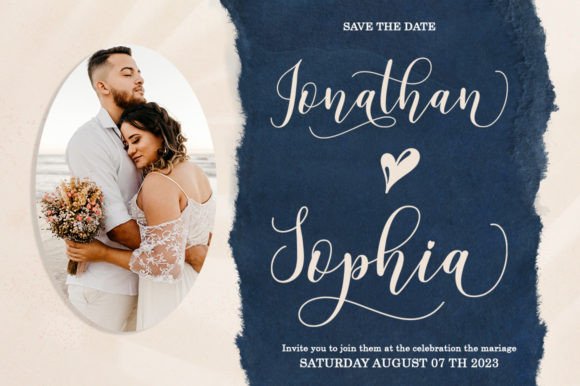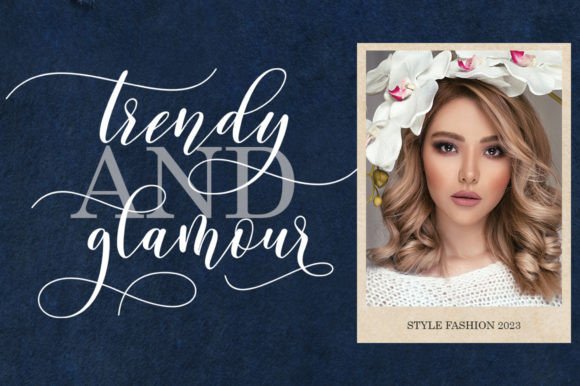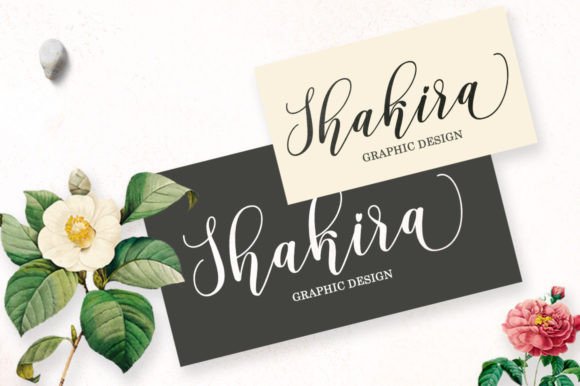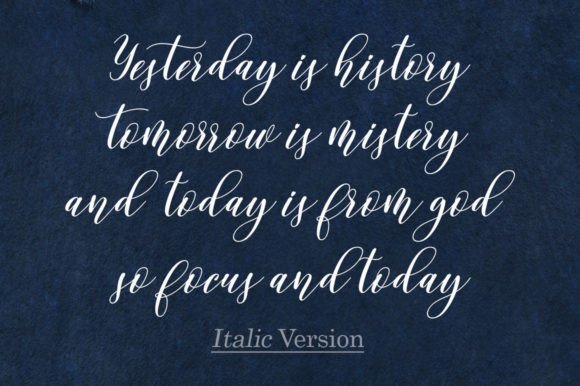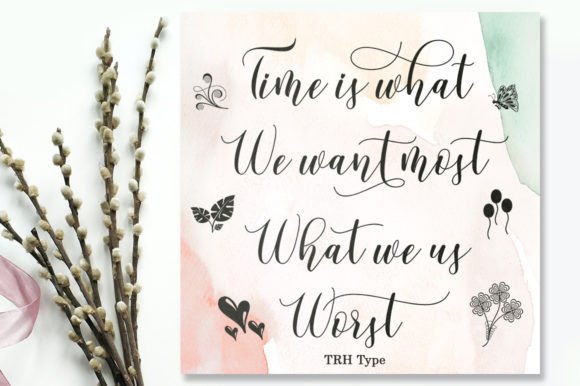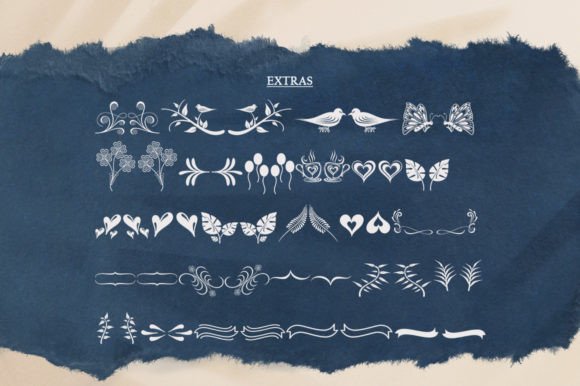
Introduction to Hello Sweetheart Font
Have you ever found yourself staring at a blank design project, desperately searching for the perfect font to give it that extra oomph? I’ve been there too, and trust me, it’s frustrating. But what if I told you there’s a font that can instantly elevate your design game? Enter the enchanting Hello Sweetheart Font, a beautifully crafted typeface that exudes elegance and sophistication.
As a designer, you know the importance of having the right design resources at your fingertips. And when it comes to creating a high-quality, professional-looking project, the right font can make all the difference. With its delicate curves and refined aesthetic, the Hello Sweetheart Font is a valuable addition to any designer’s toolkit.
Key Features of Hello Sweetheart Font
- Unique, cursive script design ideal for creative projects and romantic themes
- Includes a range of characters, including uppercase and lowercase letters, numbers, and punctuation
Honest Review: Hello Sweetheart Font
I recently stumbled upon the Hello Sweetheart Font while searching for the perfect design resource for a creative project. I was immediately drawn to its playful, handwritten style, which I knew would be perfect for a social media campaign.
- ✨ The high-quality design ensures that the font looks crisp and clear, even at larger sizes.
- ⚠️ The font is a bit on the cursive side, which can make it difficult to read for those with vision impairments.
- ⚠️ The font doesn’t include a wide range of weights or styles, which can limit its versatility.
Overall, I’m impressed with the Hello Sweetheart Font. While it may have a few limitations, its unique style and high-quality design make it a valuable addition to any designer’s toolkit. If you’re looking for a fun, handwritten font for a creative project, I’d definitely recommend giving it a try.
Tips for Getting the Most Out of Hello Sweetheart Font
To get the most out of the Hello Sweetheart Font, use it in conjunction with other design elements, such as bold colors and textures. Experiment with different font sizes and styles to add visual interest to your design.
The Hello Sweetheart Font is perfect for:
- Wedding invitations and decorations
- Baby shower invitations and decorations
- Valentine’s Day cards and gifts